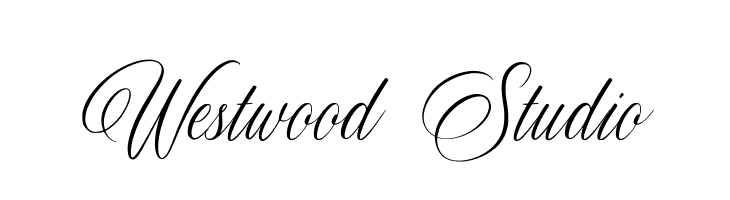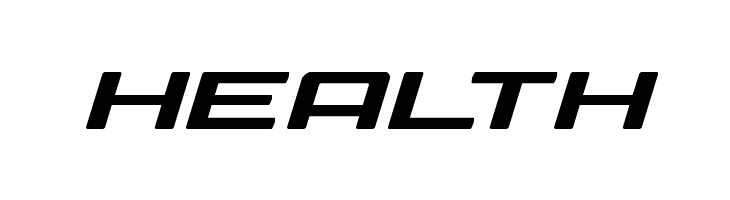
A playful, bubble-like font with interconnected strokes and an artistic flair.
A bold, italicized handwritten font with a playful and dynamic style.
A playful, casual handwritten font with rounded, smooth letterforms.
A sophisticated and fluid script font with elegant, flowing lines.
A cursive, handwritten-style font with elegant, flowing strokes.
A bold, modern sans-serif font with italic styling for dynamic and clear text.
A bold, geometric, and three-dimensional decorative font.
An elegant, flowing script font with graceful loops and cursive strokes.
A distorted, oblique sans-serif font with a dynamic, fragmented style.
A modern, thin, and elegant font with a condensed style.
A bold, italic font with a dynamic and impactful style.
Minimalist sans-serif font optimized for UI clarity.
A bold, geometric font with sharp angles and a futuristic style.
A dynamic and elegant script font with fluid, cursive letterforms.
A modern, geometric sans-serif font with clean lines and balanced proportions.
A bold, decorative font with a vintage style and intricate design elements.
A bold, grunge-inspired font with a distressed and edgy appearance.
A bold, italic font with a sporty and modern design.
A bold, geometric font with sharp angles and a futuristic style.
A bold, playful font with a three-dimensional outline effect.
A playful and elegant script font with flowing, cursive letterforms.
A bold, brush-like script font with interconnected letters and a dynamic style.
A lively, handwritten script font with a playful and dynamic style.
A playful 3D font with bold outlines and a modern twist.
A gothic, jagged font with a tattoo-like, hand-drawn aesthetic.
A whimsical and elegant handwritten script font with playful loops and curves.
A sleek, modern, light italic font with smooth strokes and balanced proportions.
A bold, hand-drawn font with outlined characters and a playful style.
A bold, edgy font with sharp angles and a futuristic style.
A playful, handwritten font with a rebellious and dynamic style.
An ornate, medieval-style font with bold, decorative elements and intricate serifs.
A bold, geometric font with a modern, angular design.